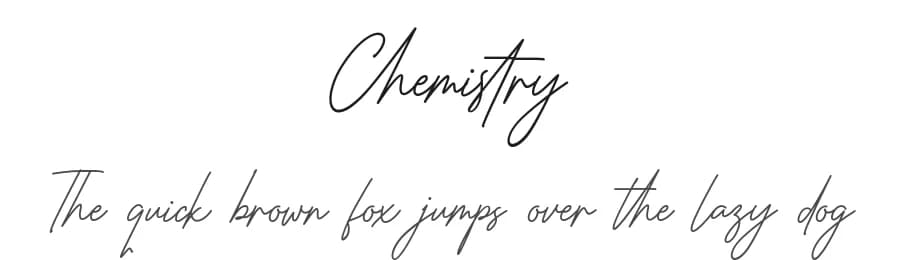
About Chemistry Font
Chemistry ships with 2 OpenType features you can switch on in apps that support them (Illustrator, InDesign, Affinity, Figma, CSS font-feature-settings).
Chemistry supports 209 languages.
Chemistry Font is a script font that shines as a display or heading face. Pair it with a clean sans-serif or serif font for body text β the contrast creates a clear hierarchy while the two styles stay balanced and easy to read.
Chemistry Font